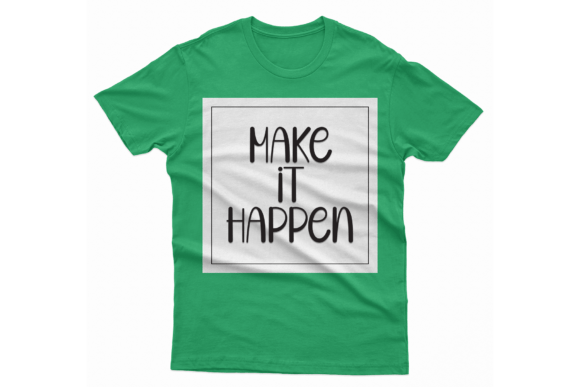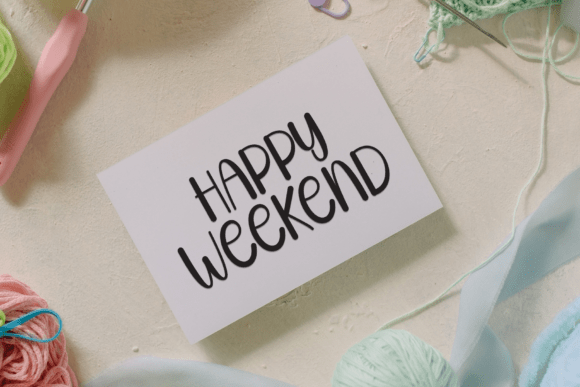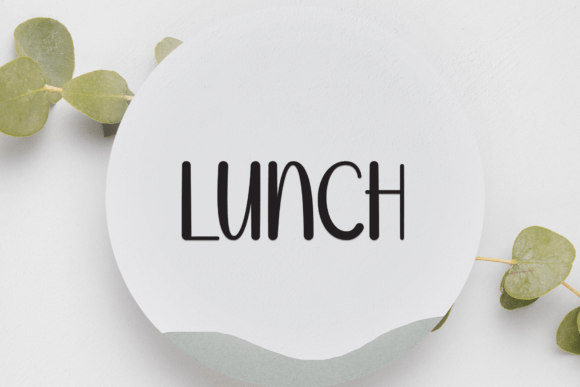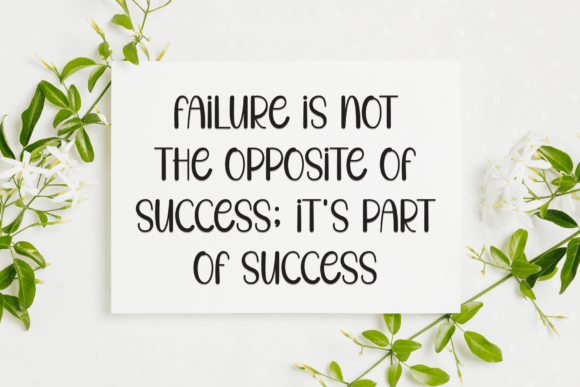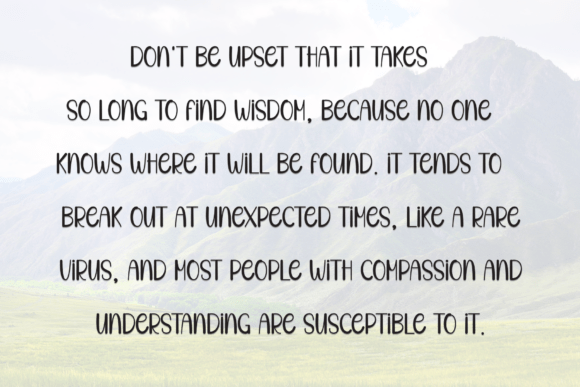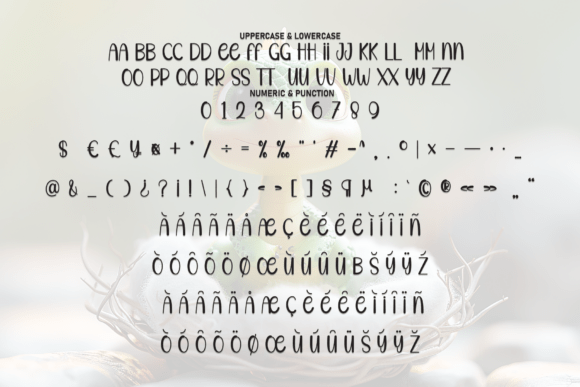
Unleash the Playful Charm of Your Designs
As designers, we’ve all had those moments when we’re brainstorming a new project and suddenly, an idea strikes – a vibrant color palette, a quirky illustration, or a typeface that perfectly captures the essence of our vision. For me, it was when I stumbled upon the Baby Dinosaur Font, and I knew I had to bring its whimsical charm to life. This delightful display font is more than just a typeface; it’s a gateway to unleashing the playful side of your designs.
Hand-sculpted with love and care, the Baby Dinosaur Font is designed to add a touch of jubilance to any project, from wedding invitations to greeting cards. Its laid-back elegance makes it a valuable addition to any designer’s toolkit, allowing them to inject a sprinkle of joy into their creations. Whether you’re a seasoned pro or a budding designer, this font is sure to capture hearts and fuel imagination.
Baby Dinosaur Font Key Features
- Unique Characteristics: The Baby Dinosaur Font features a playful, whimsical design with a mix of uppercase and lowercase letters, numbers, and symbols, making it perfect for children’s books, nursery decor, and other fun projects.
Baby Dinosaur Font Review
Overall, I have mixed feelings about the Baby Dinosaur Font. On one hand, there are some aspects that really stand out to me. ✨ The font is incredibly playful and whimsical, which makes it perfect for children’s books, nursery decor, or any project that needs a touch of fun. The designer has done a great job of capturing the charm of a baby dinosaur, and it’s sure to bring a smile to people’s faces.
One of the things I appreciate most about this font is its versatility. ✨ It comes in a range of styles and weights, from bold and playful to delicate and cursive. This makes it easy to use in a variety of contexts, from headlines to body text. The font also has a range of alternates and swashes, which adds to its charm and makes it feel more hand-drawn.
However, there are some limitations to consider. ⚠️ For one thing, the font is not suitable for serious or formal projects. The playful vibe is just too much for something like a business report or a news article. Additionally, the font is not as legible at small sizes, which can make it difficult to use in certain contexts.
Overall, I think the Baby Dinosaur Font is a great choice for the right project. Just be sure to use it in a context where its playful vibe will shine through, and be mindful of its limitations.
- Playful and whimsical design
- Range of styles and weights
- Alternates and swashes for added charm
- Not suitable for serious or formal projects
- May not be legible at small sizes
The Baby Dinosaur Font is ideal for:
- Animated GIFs and videos.
- Whimsical and playful designs.
For optimal results, use the Baby Dinosaur Font in conjunction with bold colors and playful graphics.